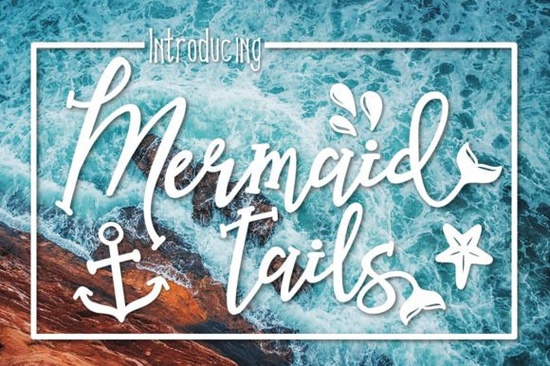
If you design beach invitations or mermaid-themed party decor, finding a font that brings coastal vibes without extra clipart work is a real time-saver. Mermaid Tails is a whimsical serif script that comes with built‑in seashells, waves, and anchors – so you don’t have to hunt down separate elements. It’s playful but still readable, which makes it a solid choice for everything from summer party invites to ocean‑inspired branding.
What kinds of projects work best with this font?
The ocean extras and flowing letterforms make it a natural fit for:
- Event invitations – beach weddings, luaus, pool parties, or any seaside celebration.
- Print‑on‑demand products – t‑shirts, tote bags, mugs, and wall art with a coastal theme.
- Social media graphics – quotes about the ocean, summer sales, or travel content.
- Paper crafts and scrapbooking – title cards, journaling accents, and handmade cards.
- Children’s materials – book covers, activity sheets, or birthday banners for mermaid‑loving kids.
Because the extras (like tiny starfish and anchors) are part of the character set, you can type them right into your layout without extra layers. That keeps your file size small and your workflow fast.
How does it compare to other serif fonts?
Not every serif font has a playful edge. If you need something cleaner and more formal, Vernacular Serif offers a classic feel with sharp serifs and even spacing – great for body text or minimal branding. On the other hand, Libre Baskerville is a web‑friendly serif that works well for long‑form reading, like blog headers or ebook layouts.
Mermaid Tails sits in a different lane. It’s more decorative, with bouncy ascenders and descenders that match the casual, happy mood of beach projects. If you’re working on something that needs whimsey without going full display font, this is a good middle ground. You can see the official serif font collection for this design to explore similar pairings.
For a more polished serif option, this serif variant might work when you need a straight‑forward, professional look. And for a timeless editorial style, another serif option is worth bookmarking for longer projects.
What features should you look for in a nautical font?
When you’re shopping for an ocean‑themed font, focus on these practical points:
- Extras that match your theme – shells, anchors, fish, or rope motifs should look like they belong together, not like random clipart.
- Letter legibility – even a playful script needs to be readable at small sizes (like on a mug or a postcard).
- Multiple weights or styles – one font that includes both regular and italic saves you from buying a second typeface for emphasis.
If you’re ready to add a splash of ocean magic to your next design, give Mermaid Tails a try. It’s a playful serif that turns a plain invitation into something that genuinely feels like a day at the beach.